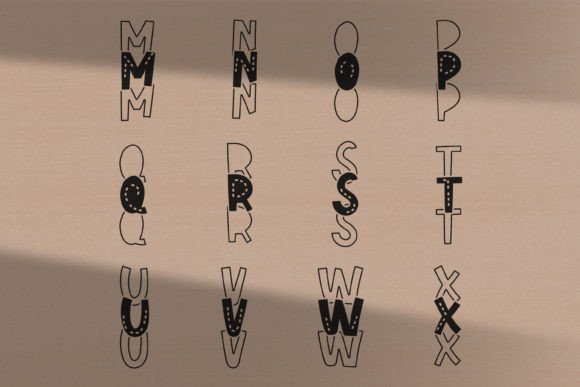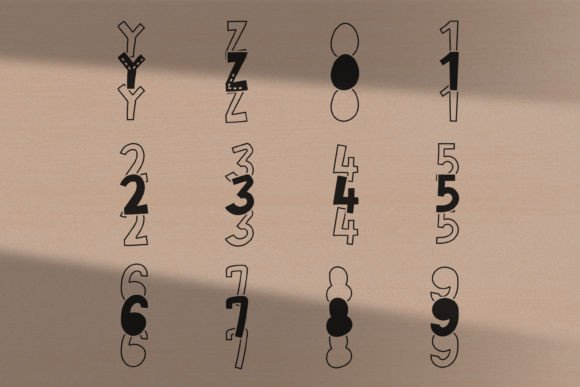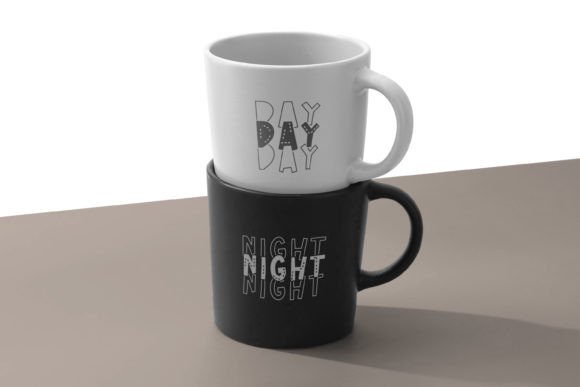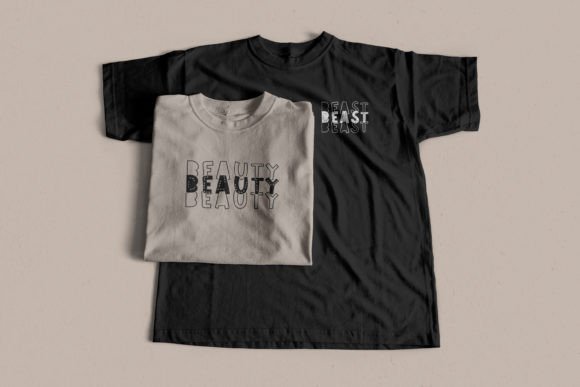
Discover the Charm of Copy Paste Font: Elevate Your Designs with Ease
Copy Paste is an incredibly cool font. Whether you use it for custom designs, DIY crafts, or just any creation that requires a lovely touch, this font will be an amazing choice. In this article, we’ll dive into the world of Copy Paste font, exploring its unique features, uses, and benefits that make it a must-have for designers and crafters alike.
What is Copy Paste Font?
Copy Paste font is a digital typeface designed to mimic the aesthetic of handwritten or typed text, often with a vintage or retro flair. Its charm lies in its imperfections and variability, which give it a personal and approachable feel. This font is perfect for adding a touch of warmth and personality to any design project.
Unique Features of Copy Paste Font
- Variability: Copy Paste font often comes with a range of variations, including different weights, sizes, and styles. This versatility allows designers to experiment with different looks and feels, ensuring their project stands out.
- Handwritten Aesthetic: The font’s handwritten-like appearance adds a personal touch to designs, making them more relatable and engaging.
- Easy to Read: Despite its unique style, Copy Paste font remains highly legible, making it suitable for both headings and body text.
- Customizable: Many Copy Paste fonts offer customization options, such as changing letter spacing, size, and color, allowing designers to tailor the font to their project’s specific needs.
Uses of Copy Paste Font
Copy Paste font’s versatility makes it suitable for a wide range of applications, including:
- Custom Designs: From branding and logos to posters and flyers, Copy Paste font can add a unique touch to any custom design project.
- DIY Crafts: Whether you’re creating handmade cards, scrapbooking, or crafting, this font can elevate your projects with its charming aesthetic.
- Digital Content: Use Copy Paste font in your blog posts, social media graphics, or website headers to add a personal and engaging touch.
So, why should designers and crafters choose Copy Paste font for their projects? Here are a few compelling reasons:
- Time-Saving: With its pre-designed characters and styles, Copy Paste font saves time and effort, allowing creators to focus on the overall design and message.
- Consistency: Using a consistent font throughout a project helps maintain a cohesive look and feel, which is crucial for effective communication and branding.
- Creativity Boost: The unique aesthetic of Copy Paste font can inspire creativity and help designers and crafters think outside the box.
In conclusion, Copy Paste font is a versatile and charming typeface that can elevate any design project or craft. Its unique features, ease of use, and benefits make it an excellent choice for designers and crafters looking to add a personal touch to their creations. Whether you’re working on custom designs, DIY crafts, or digital content, Copy Paste font is sure to inspire and enhance your work.